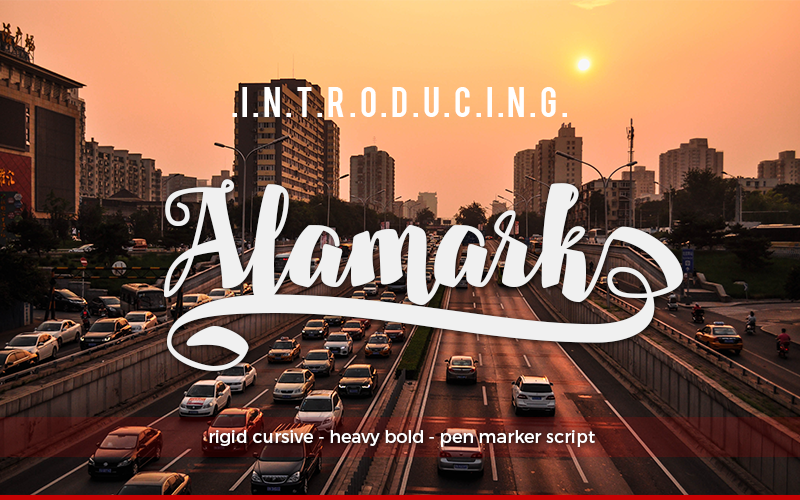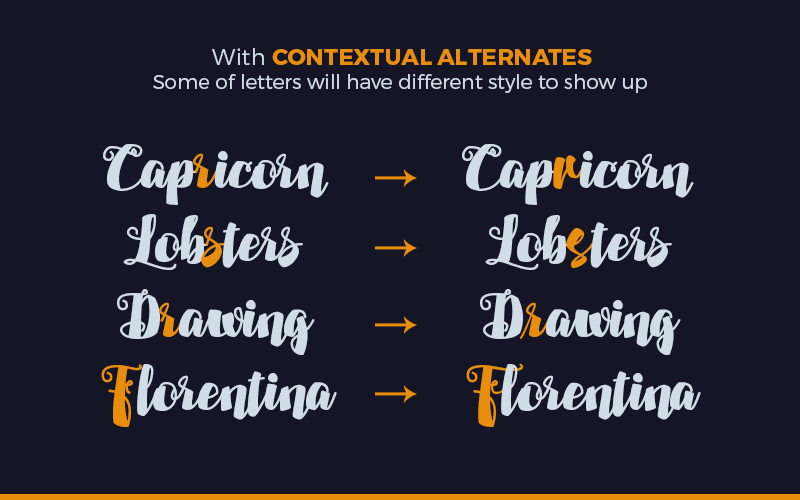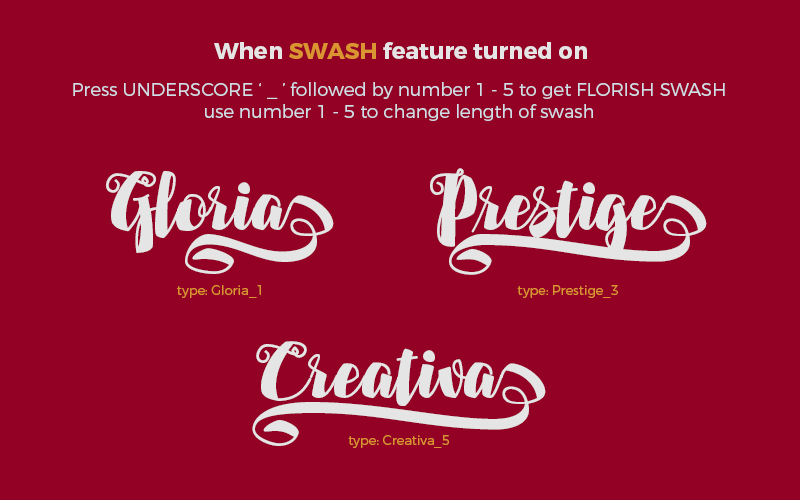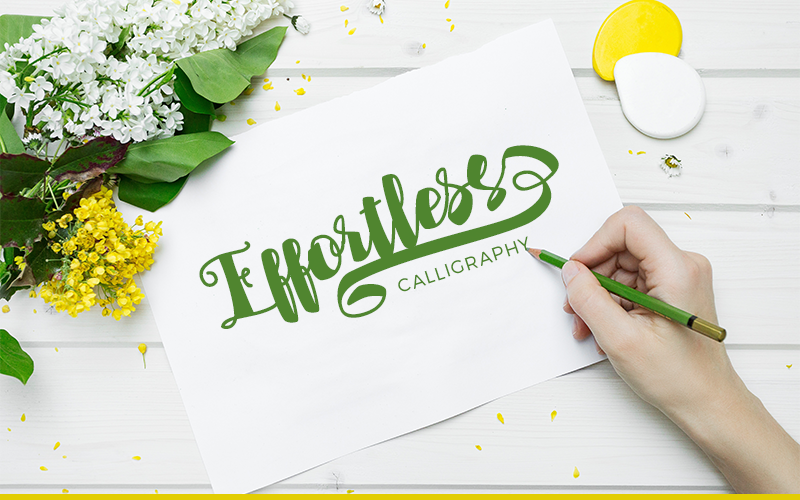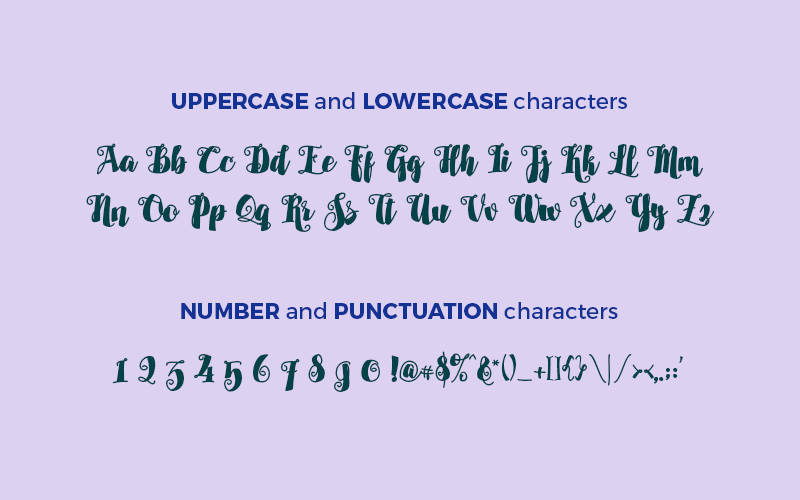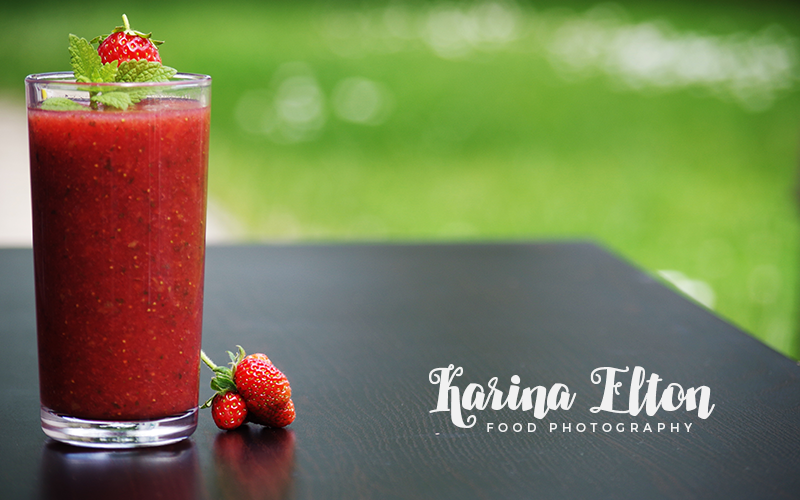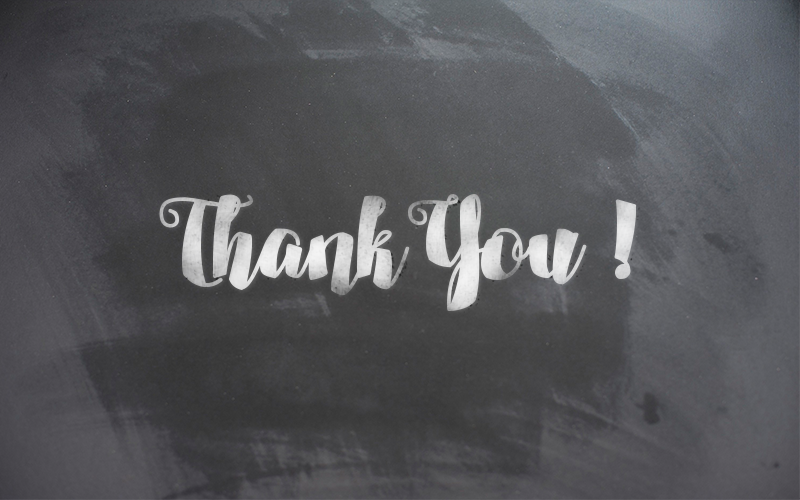
Alamark Font
About Alamark Font
Alamark is a beautiful and bont cursive font, a script demanding of all your attention. Intricately crafted by marker, Alamark’s bold look facilitates headline or display designs most.